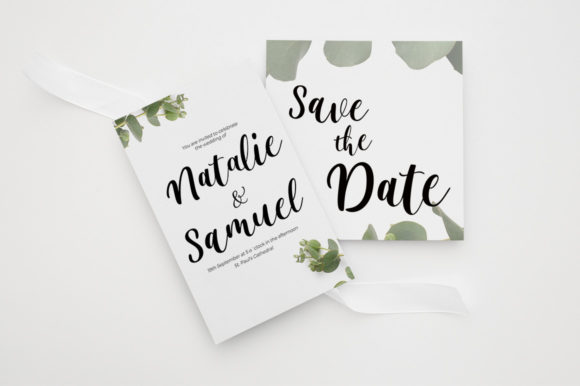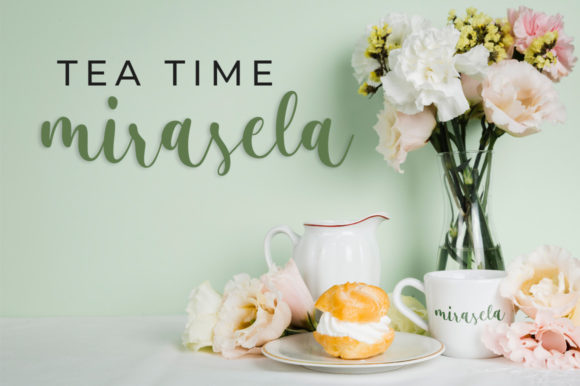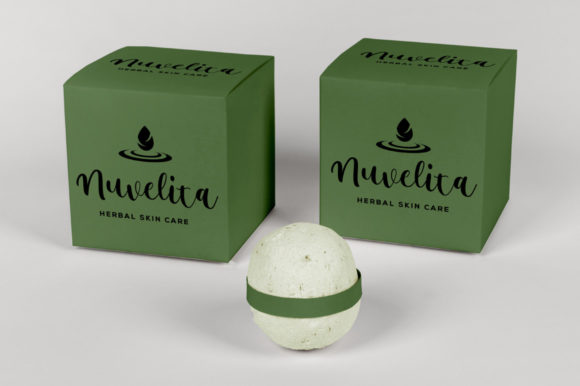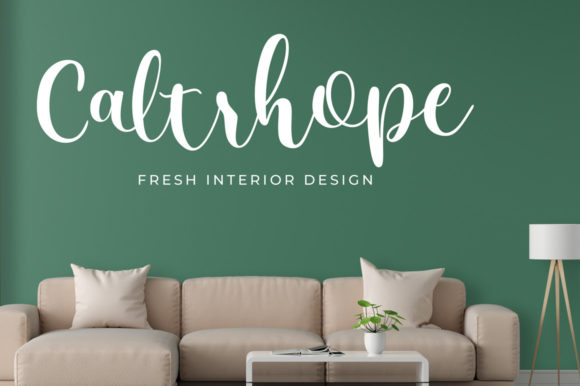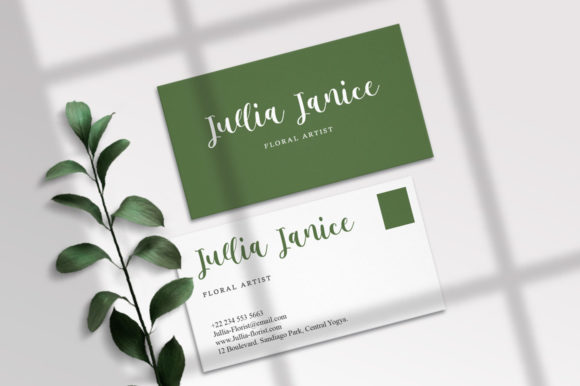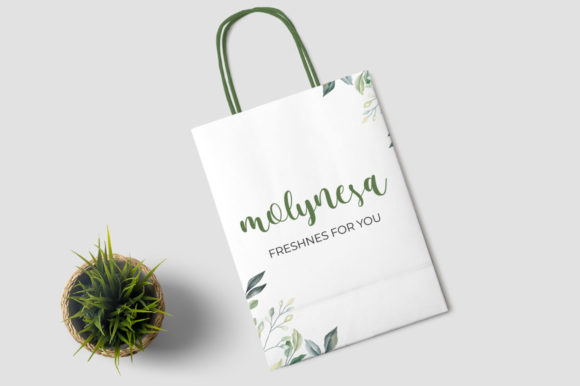
The Hunt for the Perfect Font: How Arabela Stole My Heart
I’ll never forget the time I was working on a luxury branding project for a high-end jewelry client. I had spent hours perfecting the design, but something was missing – the right font. I scoured the internet, tried countless combinations, and even considered creating my own from scratch. That’s when I stumbled upon Arabela, a stylish and incredibly elegant script font that would change the game. 💎
An Honest Review of Arabela Font
What I Love About Arabela ✨
- ✨ Elegant and sophisticated design that’s perfect for luxury brands
- 💫 Highly versatile and can be used for various design projects, from logos to invitations
- 🎨 Beautiful swashes and stylistic alternates to add a personal touch
- ⚠️ Some users may find the font a bit too ornate for certain projects
- 🤔 Limited use for body text due to its script nature
The Story Behind Arabela Font
Arabela was designed with the intention of creating a luxurious and elegant script font that would add a touch of sophistication to any design project. The designer aimed to craft a font that would be both versatile and beautiful, with a range of OpenType features to make it easy to use. While the real story behind Arabela’s creation may be unknown, its impact on the design world is undeniable.
Q: Is Arabela suitable for body text?
A: While Arabela is a beautiful font, it’s not ideal for body text due to its script nature. It’s best used for headlines, titles, and short paragraphs.